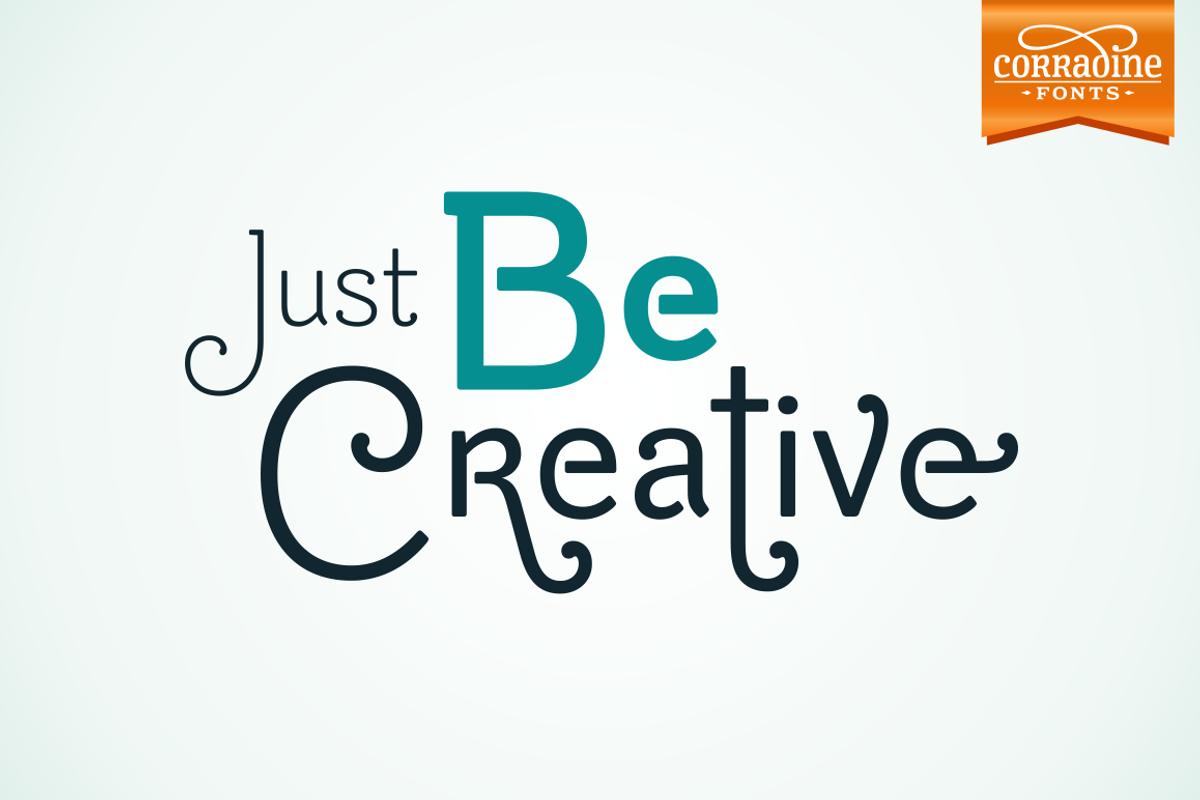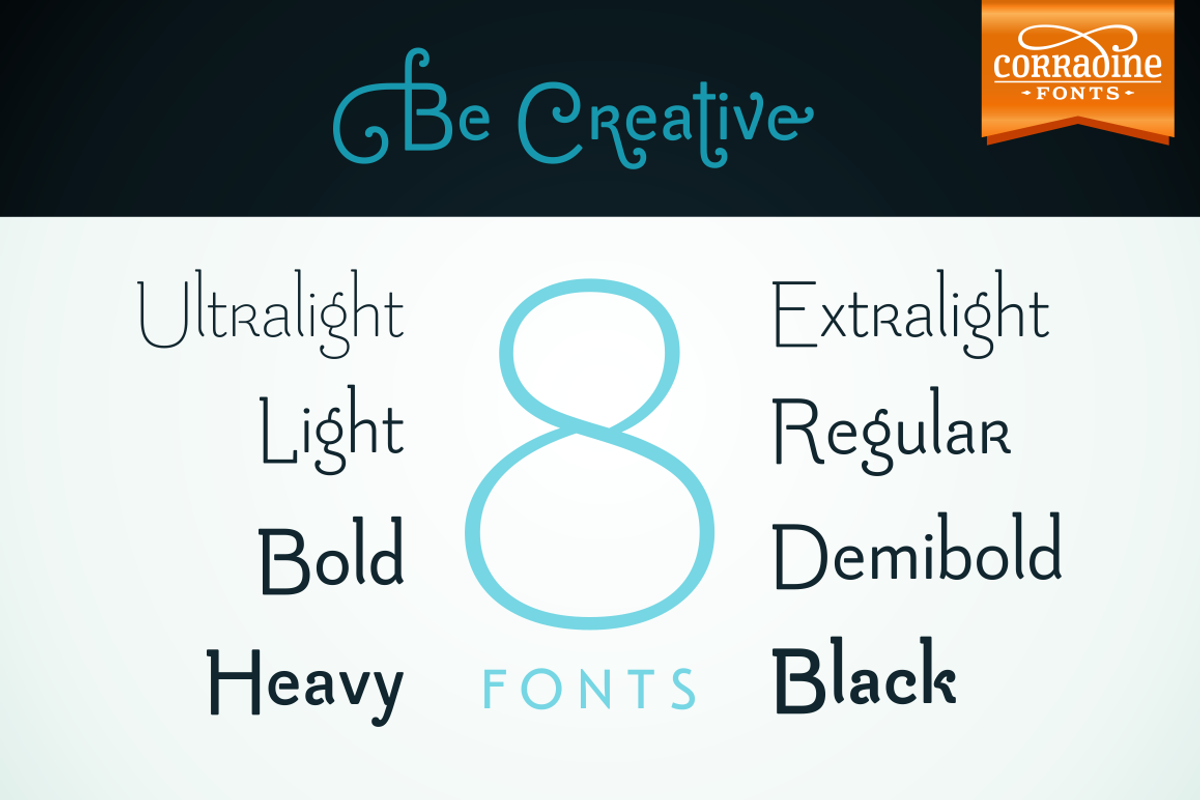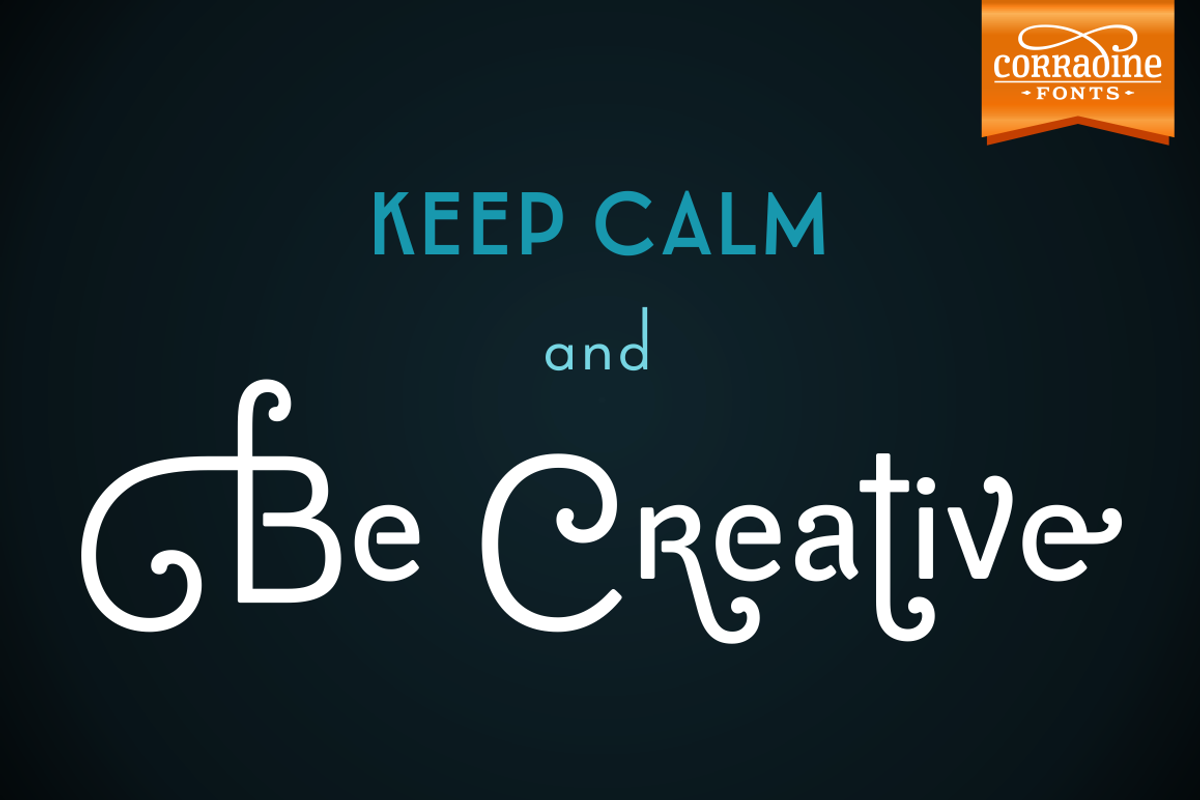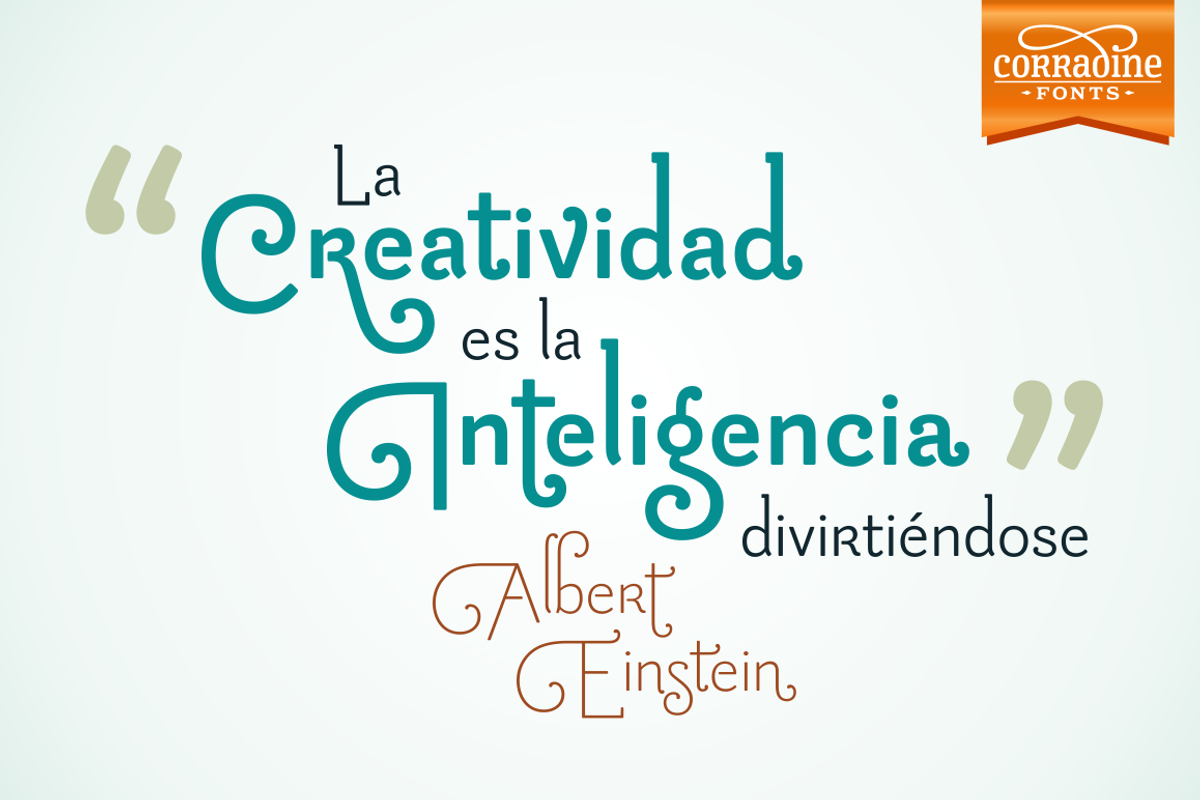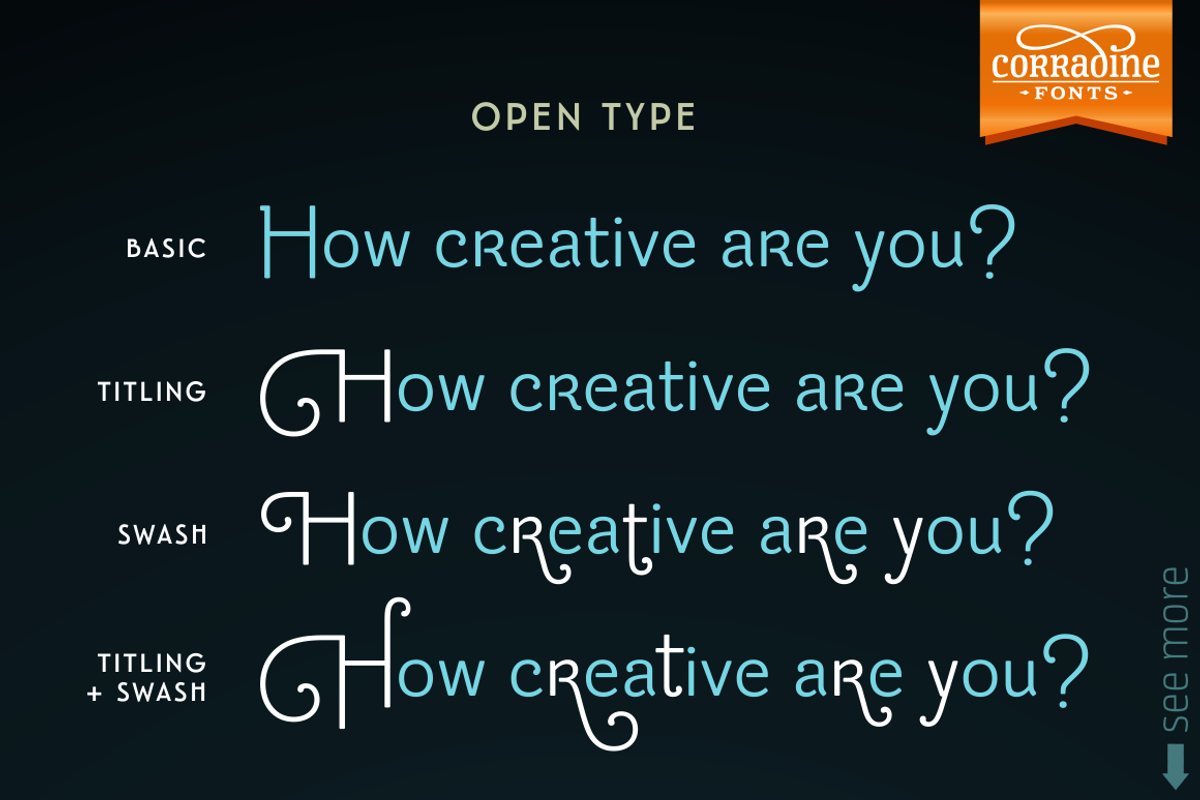
Be Creative
Be Creative by Corradine Fonts is a font selected for branding, posters, packaging, typography.
- Use the Swashes and Titling features separately or mixed to extend the length of the swashes and apply the Contextual alternates feature to
- If you prefer to use the common lowercase “r”, instead the original one of the typeface, you could replace it just by applying the Stylistic
- And finally you can enjoy the numerous discretionary ligatures that has Be Creative to obtain a completely improved appeareance of your desi
- Be Creative Ultralight
- Be Creative Extralight
- Be Creative Light
- Be Creative Regular
- Be Creative Demibold
- Be Creative Bold
- Be Creative Heavy
- Be Creative Black
Why Be Creative is worth a look
Be Creative by Corradine Fonts fits naturally into Branding, posters, packaging, typography.